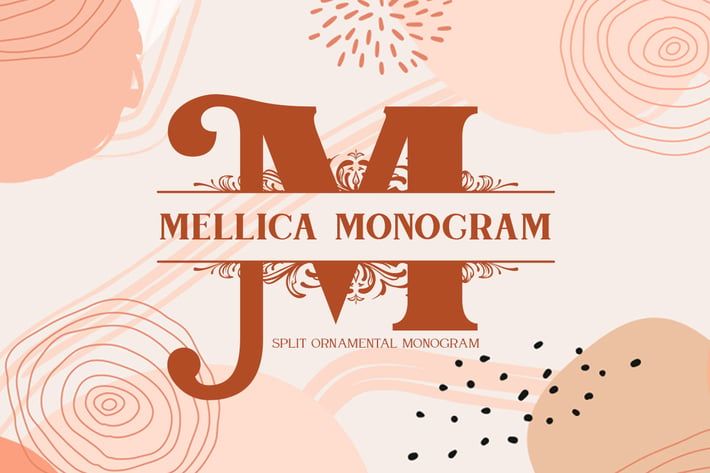
Mellica Split Monogram Font
Mellica Monogram is an incredibly elegant and unique display font. Masterfully designed to become a true favorite, this font has the potential to bring each of your creative ideas to the highest level!